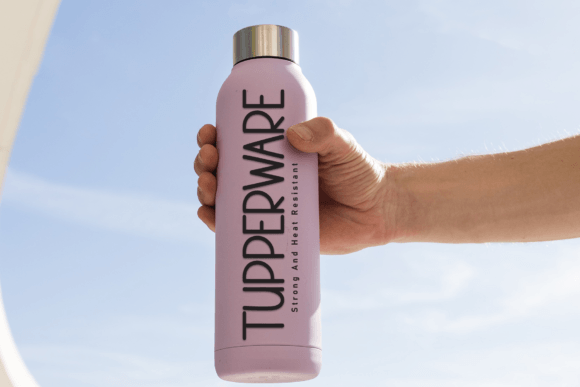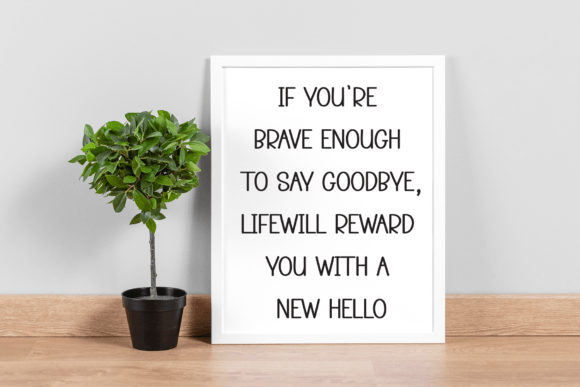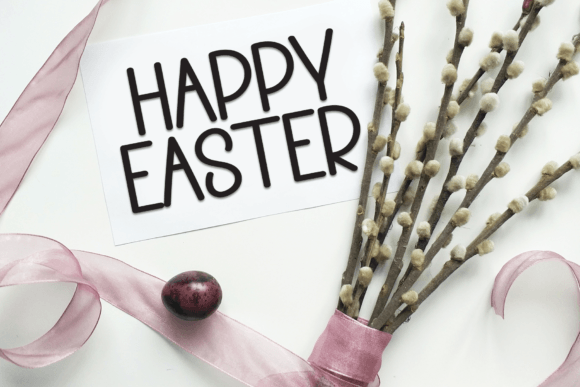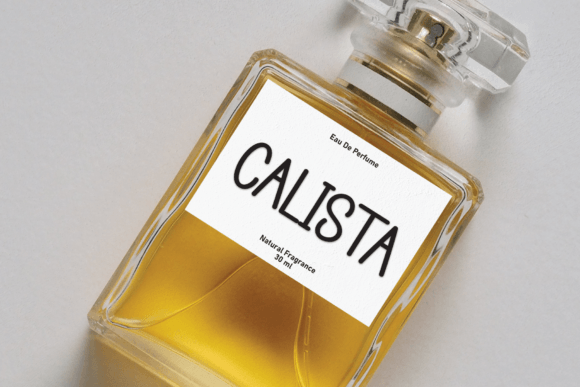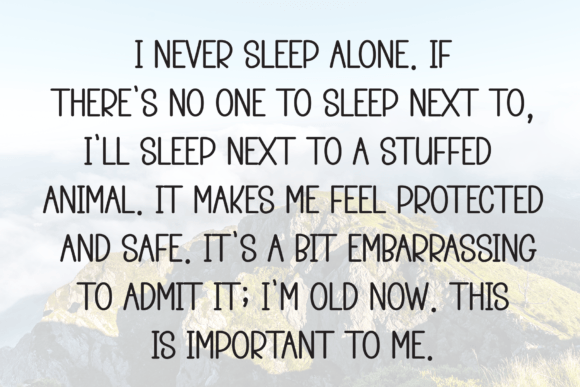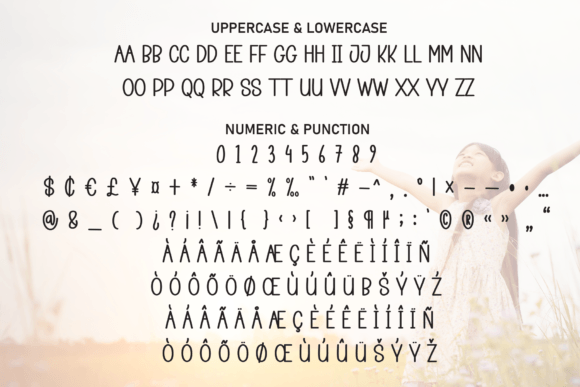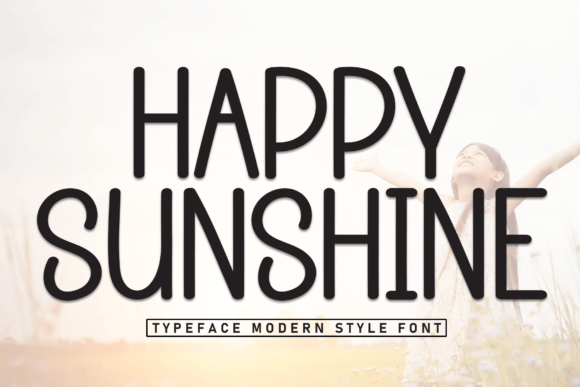
Introducing Happy Sunshine Font: The Perfect Blend of Simplicity and Friendliness
Are you tired of using fonts that are too ornate or complicated for your design projects? Look no further than the Happy Sunshine font, a neat and casual sans-serif font that embodies simplicity and readability. With its clean lines and friendly character, Happy Sunshine is perfect for a wide range of applications, from user interfaces and informative signage to modern branding and more.
The Characteristics of Happy Sunshine Font
Happy Sunshine font is designed to be highly legible and approachable, making it an excellent choice for designers and crafters who want to convey a sense of friendliness and approachability in their work. The font features:
- Clean lines: Happy Sunshine has a simple and streamlined design that ensures your message is conveyed clearly and effectively.
- Friendly character: The font has a warm and inviting personality that makes it perfect for use in a variety of contexts, from digital interfaces to print materials.
- High legibility: Happy Sunshine is designed to be easy to read, even at small sizes, making it perfect for use in body text, captions, and other applications where readability is key.
Uses for Happy Sunshine Font
Happy Sunshine font is an incredibly versatile font that can be used in a wide range of applications, including:
- User interfaces: The font’s clean lines and friendly character make it perfect for use in digital interfaces, such as mobile apps, websites, and software.
- Informative signage: Happy Sunshine is an excellent choice for use in signs, posters, and other printed materials where clear communication is essential.
- Modern branding: The font’s simplicity and approachability make it an excellent choice for use in logos, branding materials, and other marketing collateral.
- Digital and print materials: Happy Sunshine can be used in a wide range of digital and print materials, including brochures, flyers, business cards, and more.
Benefits of Using Happy Sunshine Font
There are many benefits to using Happy Sunshine font in your design projects, including:
- Improved readability: The font’s high legibility ensures that your message is conveyed clearly and effectively, even in small sizes.
- Enhanced approachability: Happy Sunshine’s friendly character helps to create a sense of approachability and friendliness, making it perfect for use in applications where you want to connect with your audience.
- Versatility: The font’s simplicity and clean lines make it an excellent choice for use in a wide range of applications, from digital interfaces to print materials.
- Professional look: Happy Sunshine has a professional and modern look that is sure to elevate your design projects and help you stand out from the crowd.
Tips for Using Happy Sunshine Font
Here are a few tips for using Happy Sunshine font in your design projects:
- Use it consistently: To get the most out of Happy Sunshine, use it consistently throughout your design project. This will help to create a cohesive look and ensure that your message is conveyed clearly.
- Experiment with different sizes: Happy Sunshine is highly legible, even at small sizes. Experiment with different sizes to find the one that works best for your project.
- Pair it with other fonts: Happy Sunshine can be paired with other fonts to create a unique and visually appealing look. Try pairing it with a serif font for a classic look or with another sans-serif font for a modern feel.
In conclusion, Happy Sunshine font is a versatile and highly legible font that is perfect for use in a wide range of applications. Its clean lines, friendly character, and high legibility make it an excellent choice for designers and crafters who want to convey a sense of simplicity and approachability in their work. Whether you’re working on a digital interface, informative signage, or modern branding, Happy Sunshine is sure to help you achieve your design goals.